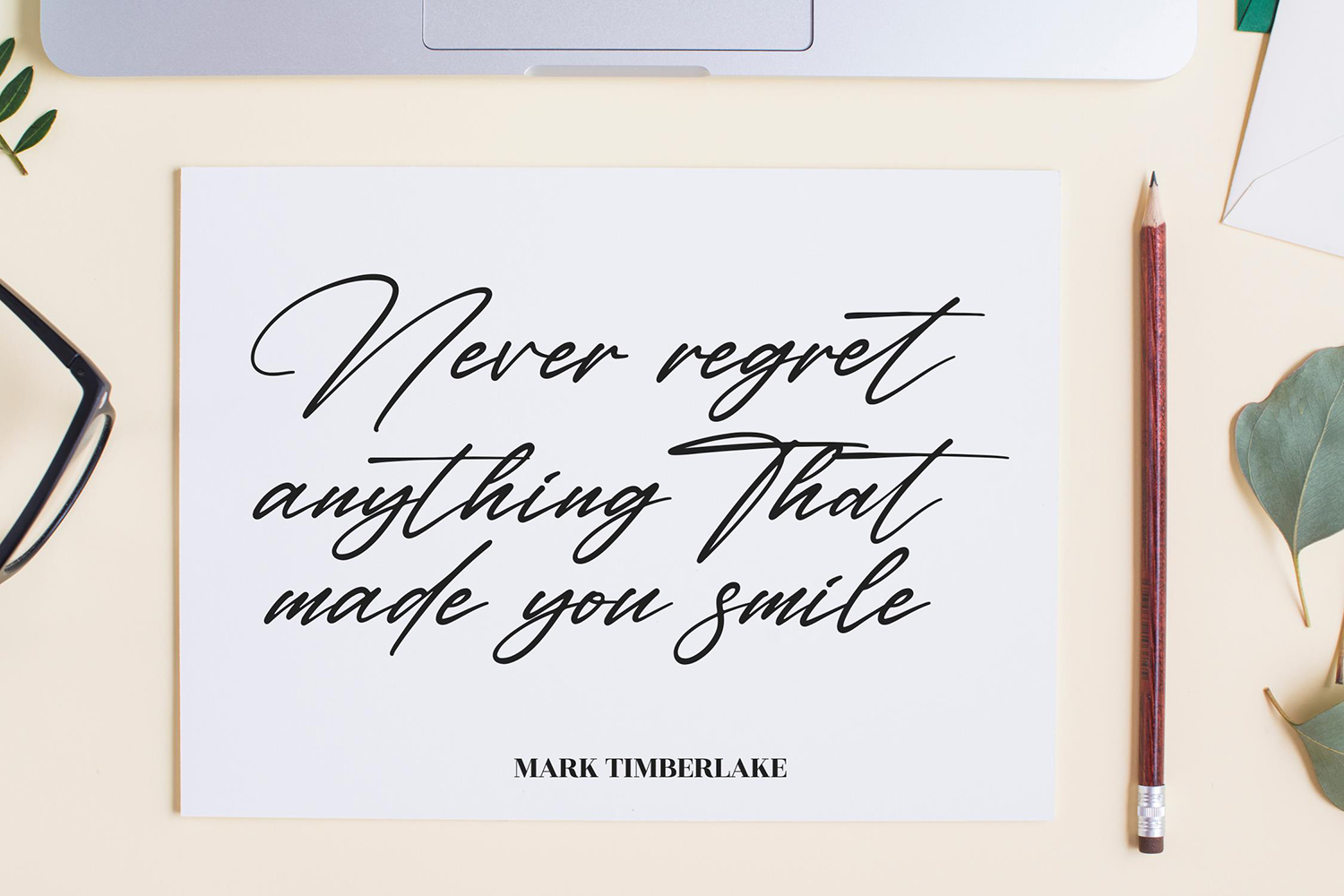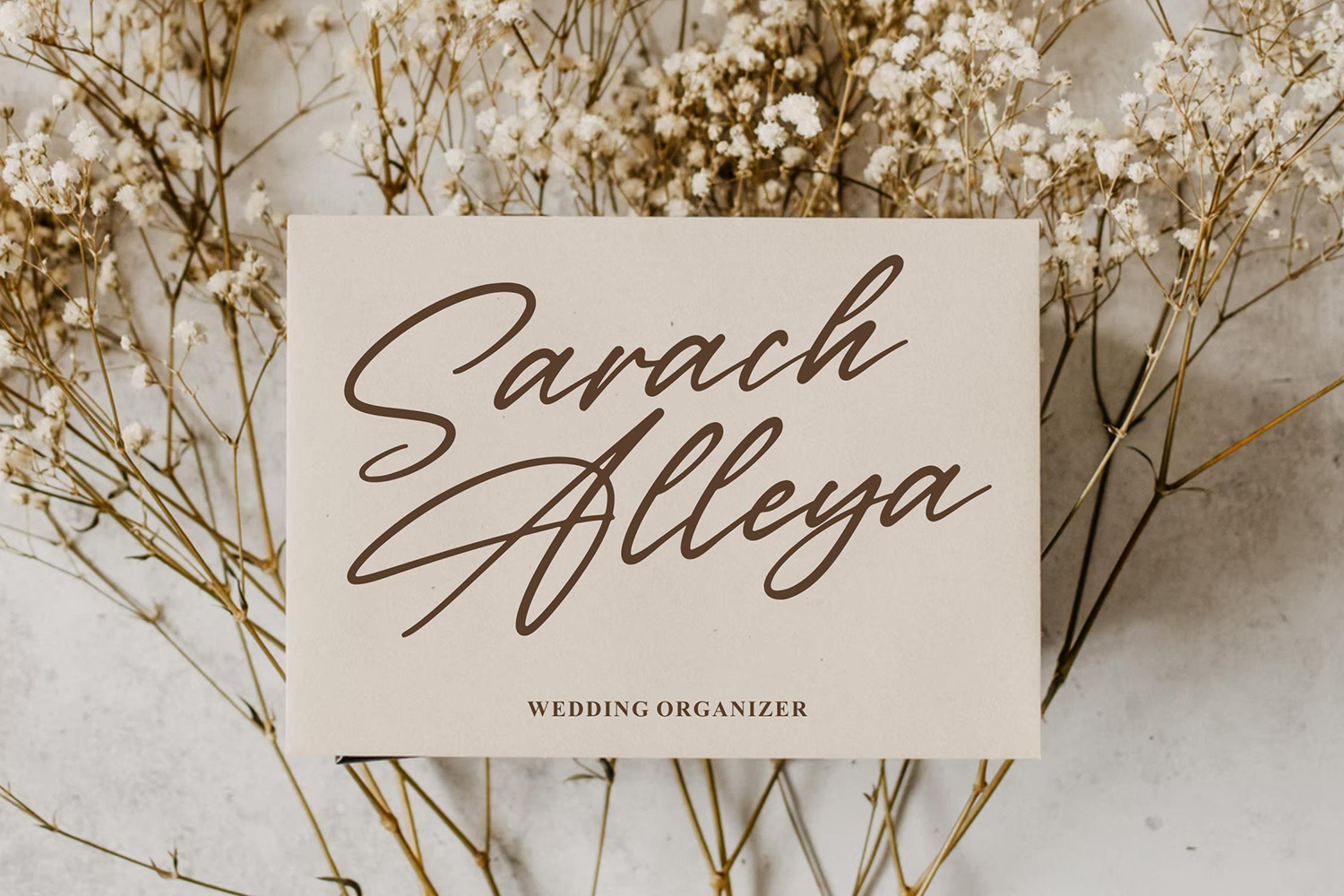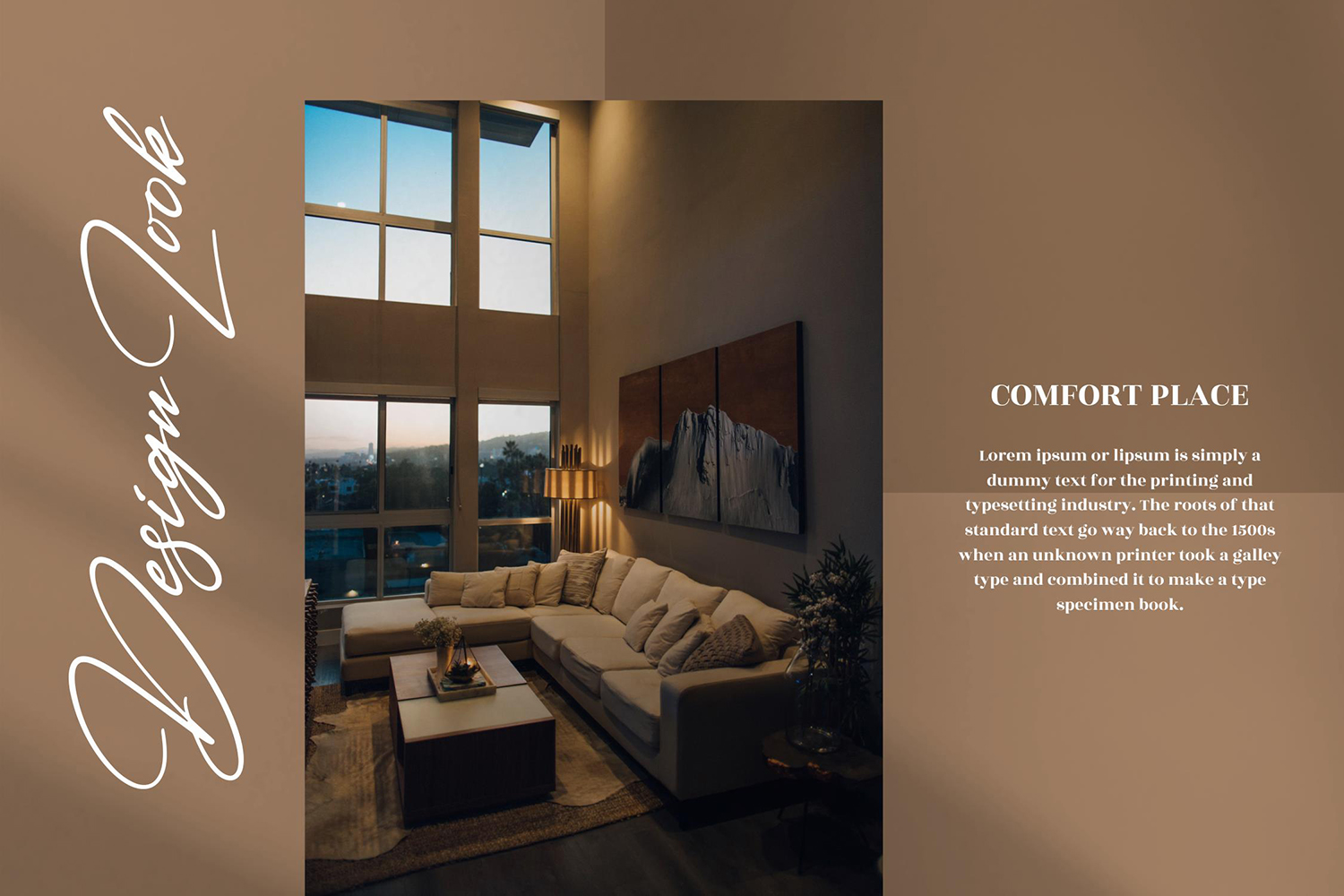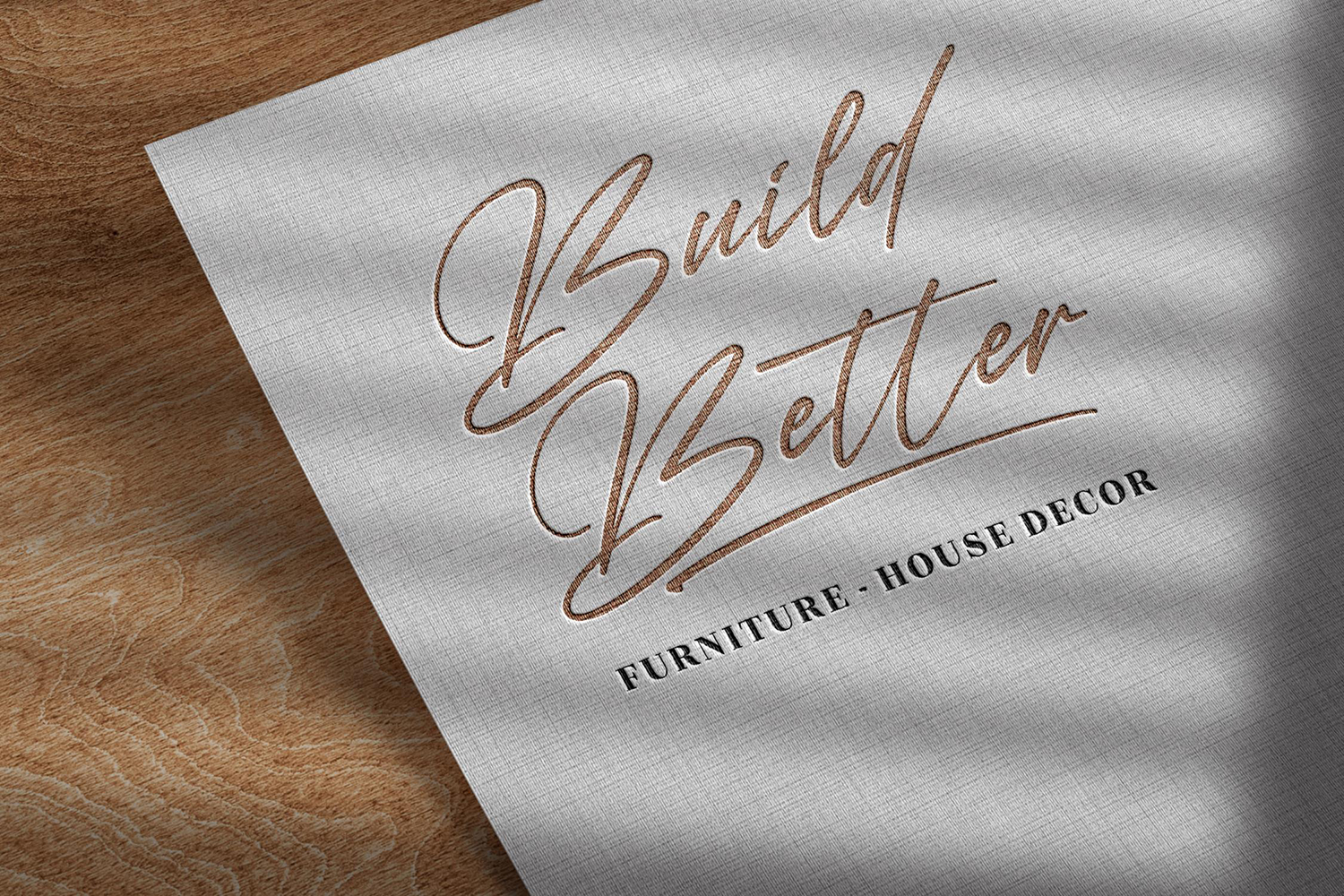
Detinata Free Font
Detinata Free Font showcases a blend of style and unmatched elegance in its script font design. Its beauty enhances various designs such as wedding invitations, thank you cards, quotes, greeting cards, logos, business cards, and any project that requires a captivating handwritten touch. This free typeface was designed by a talentedΒ Letternity Studio. If you like it don’t forget to check out the full version.